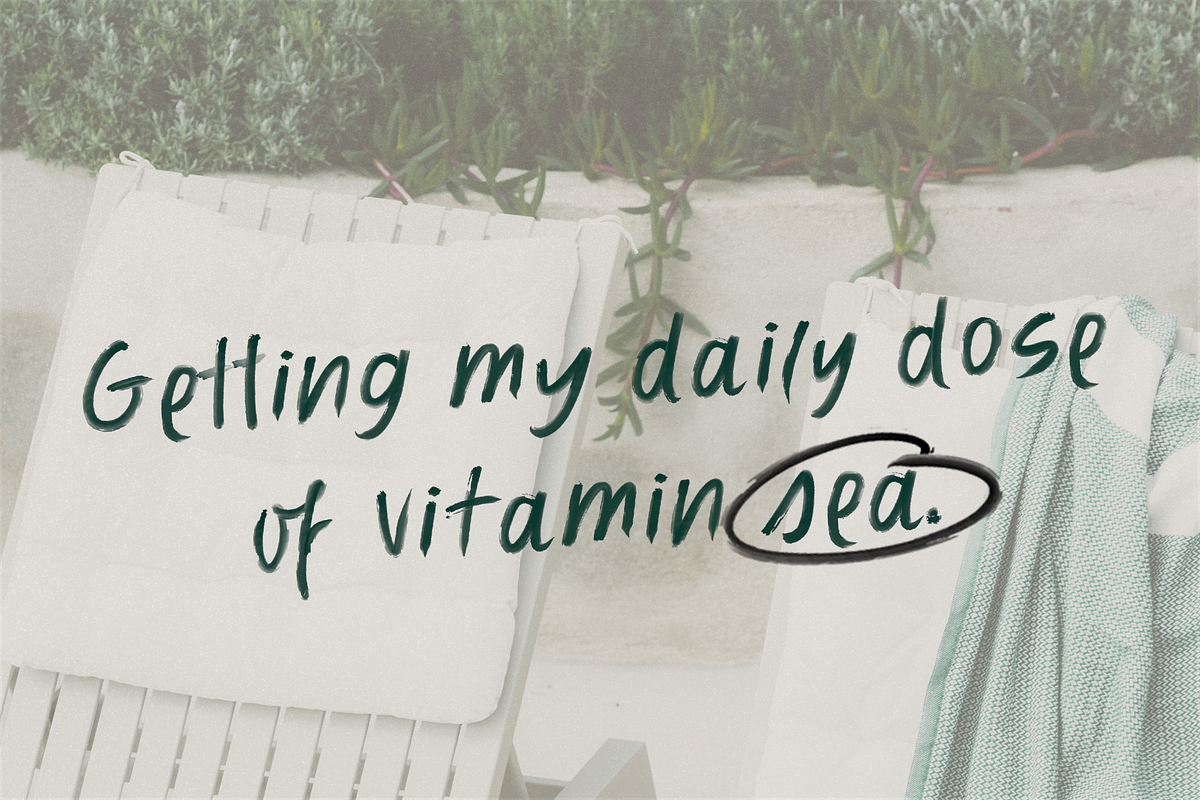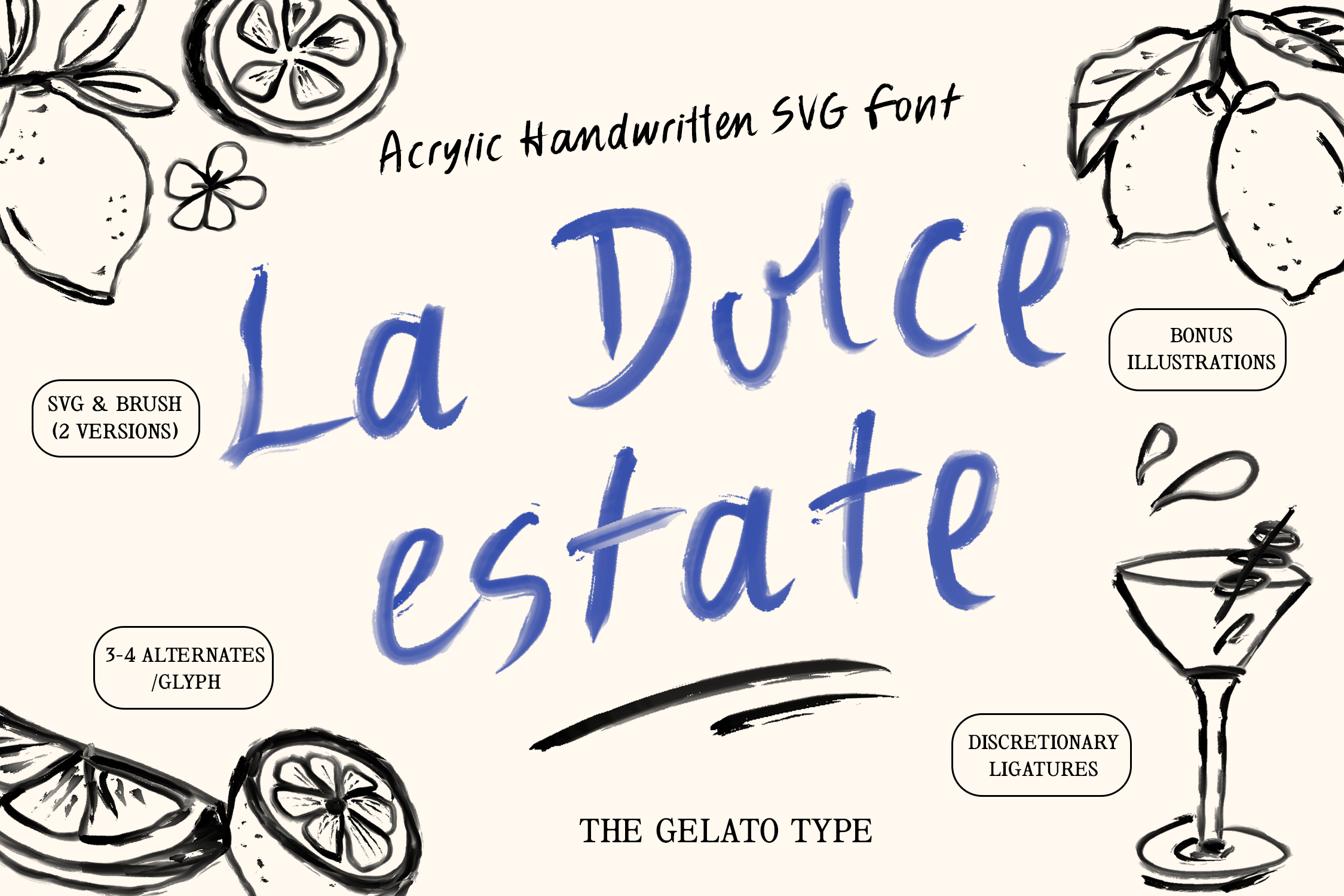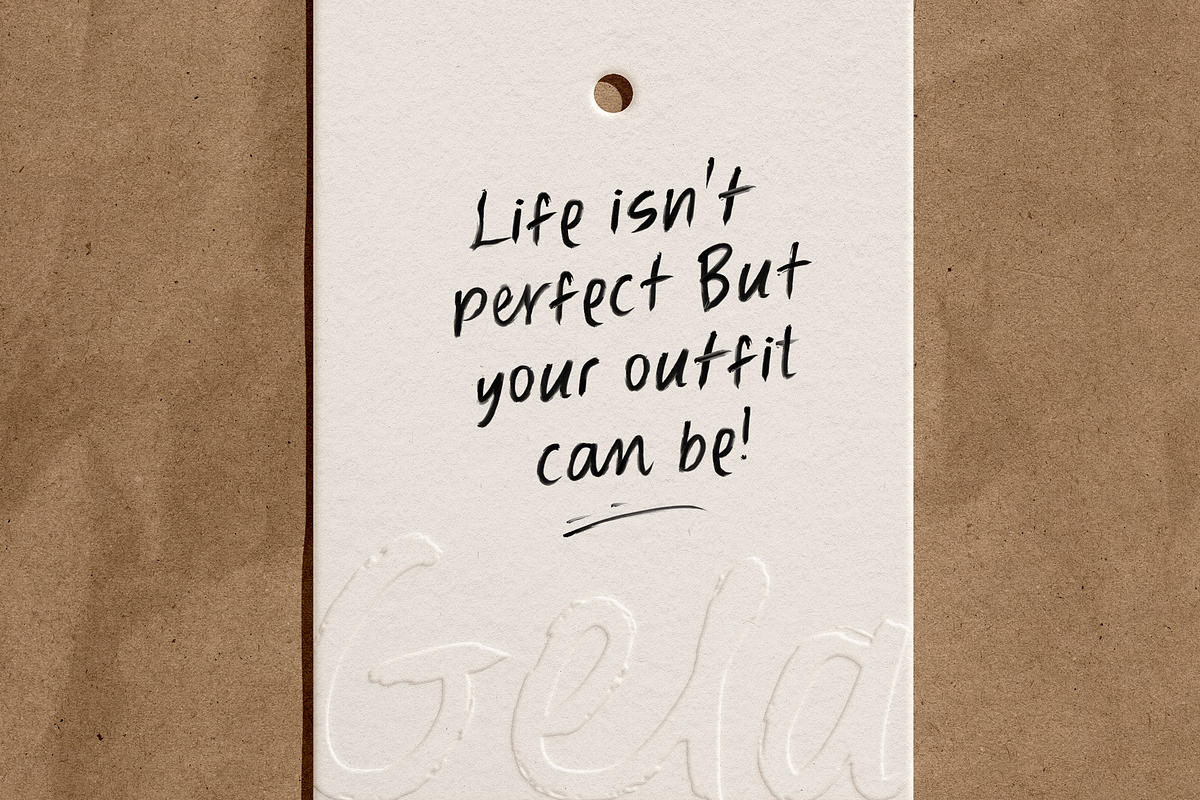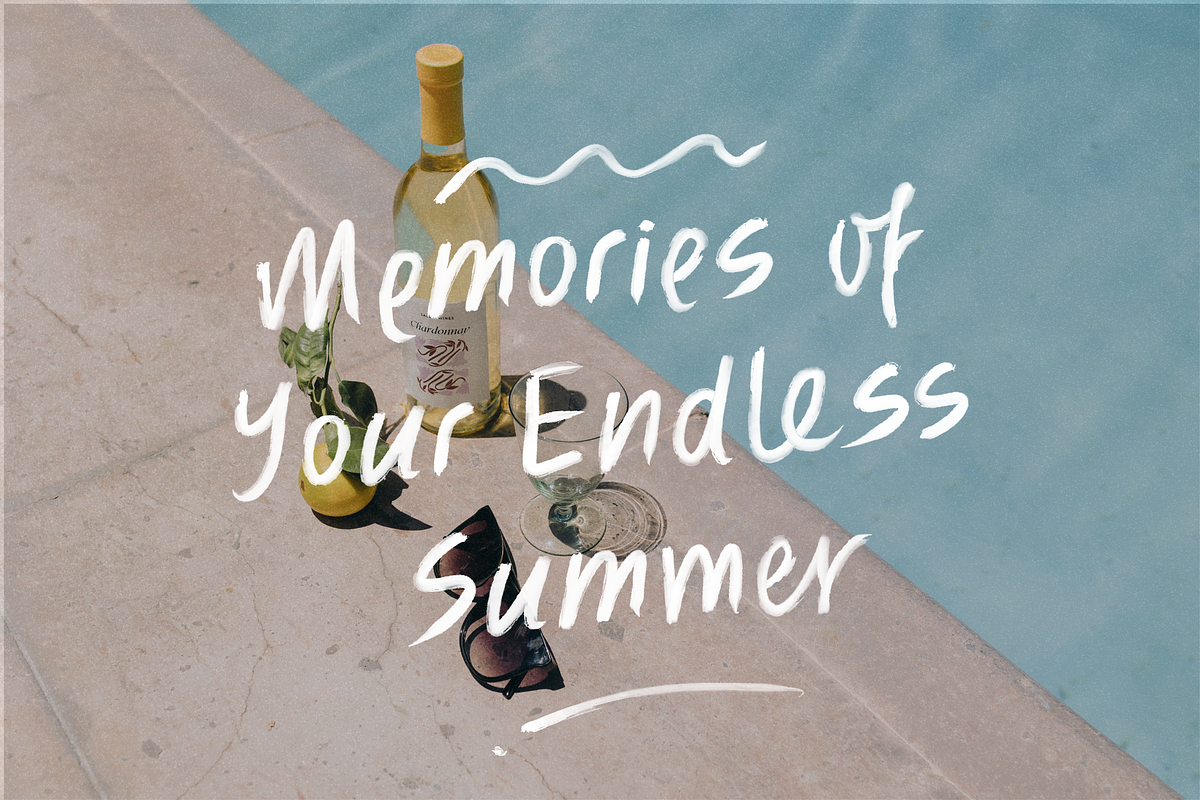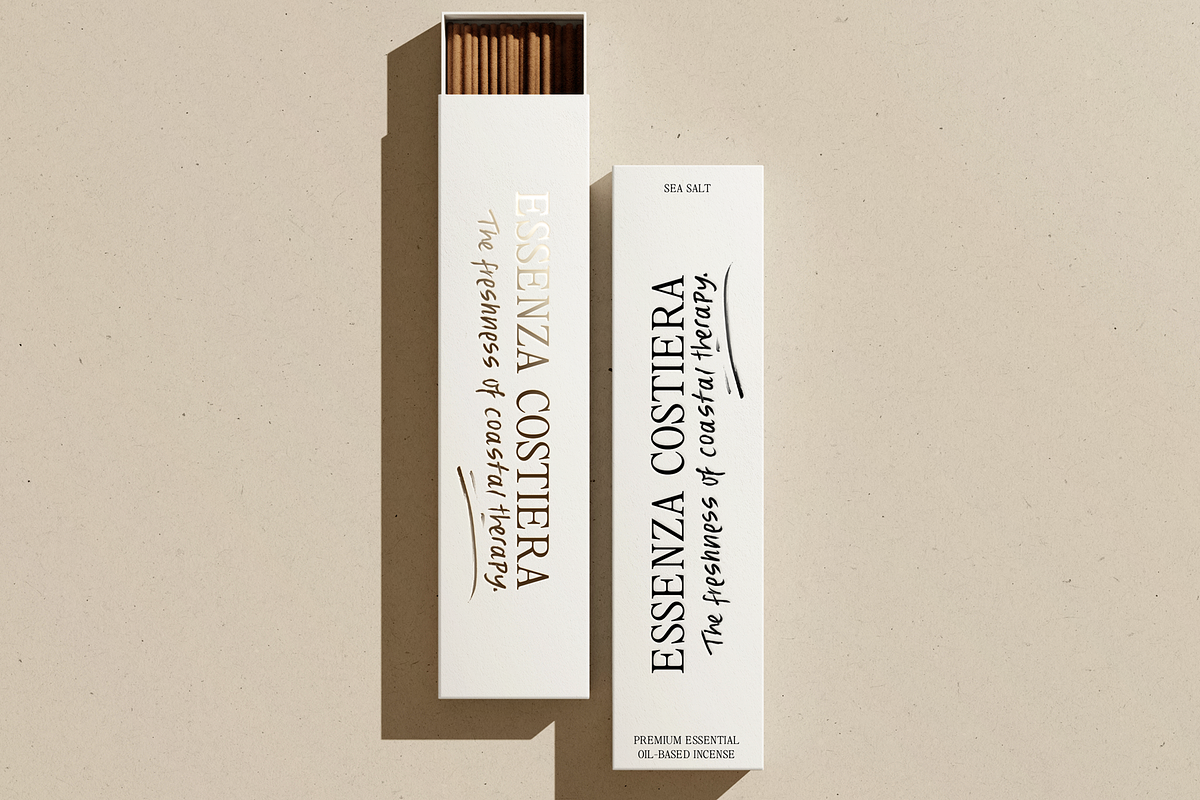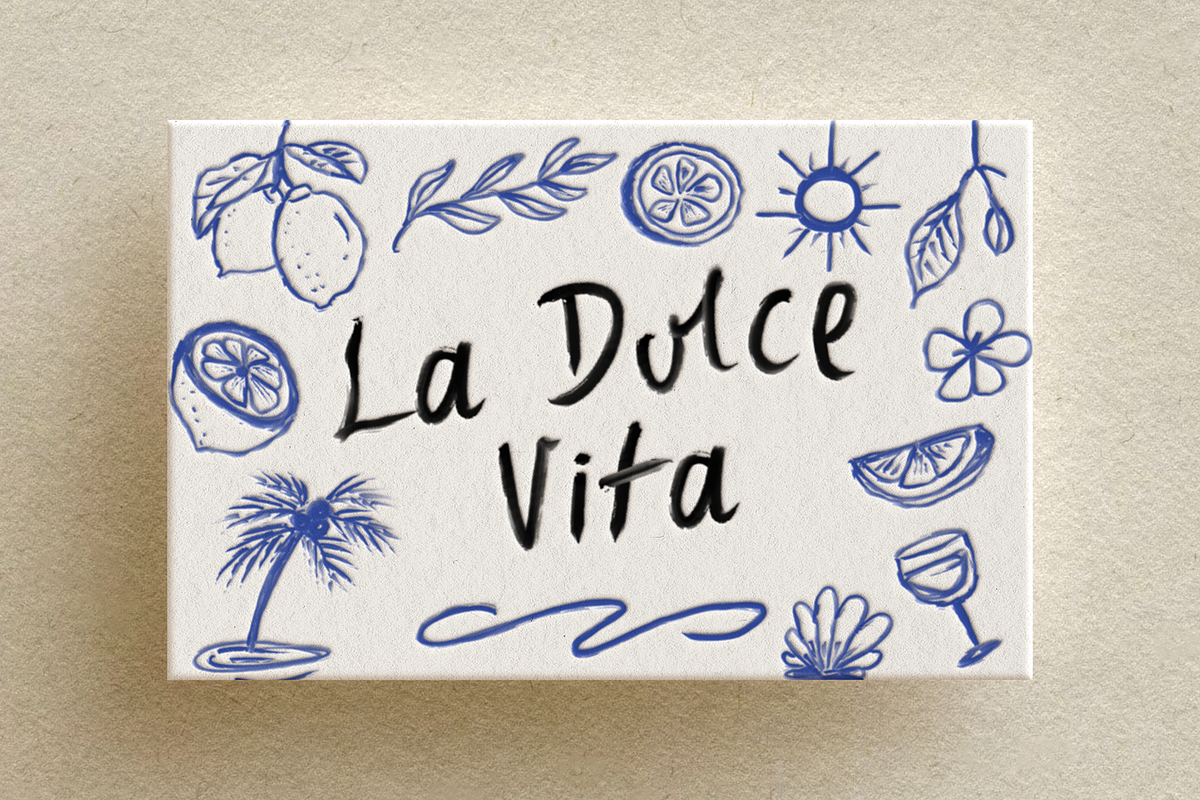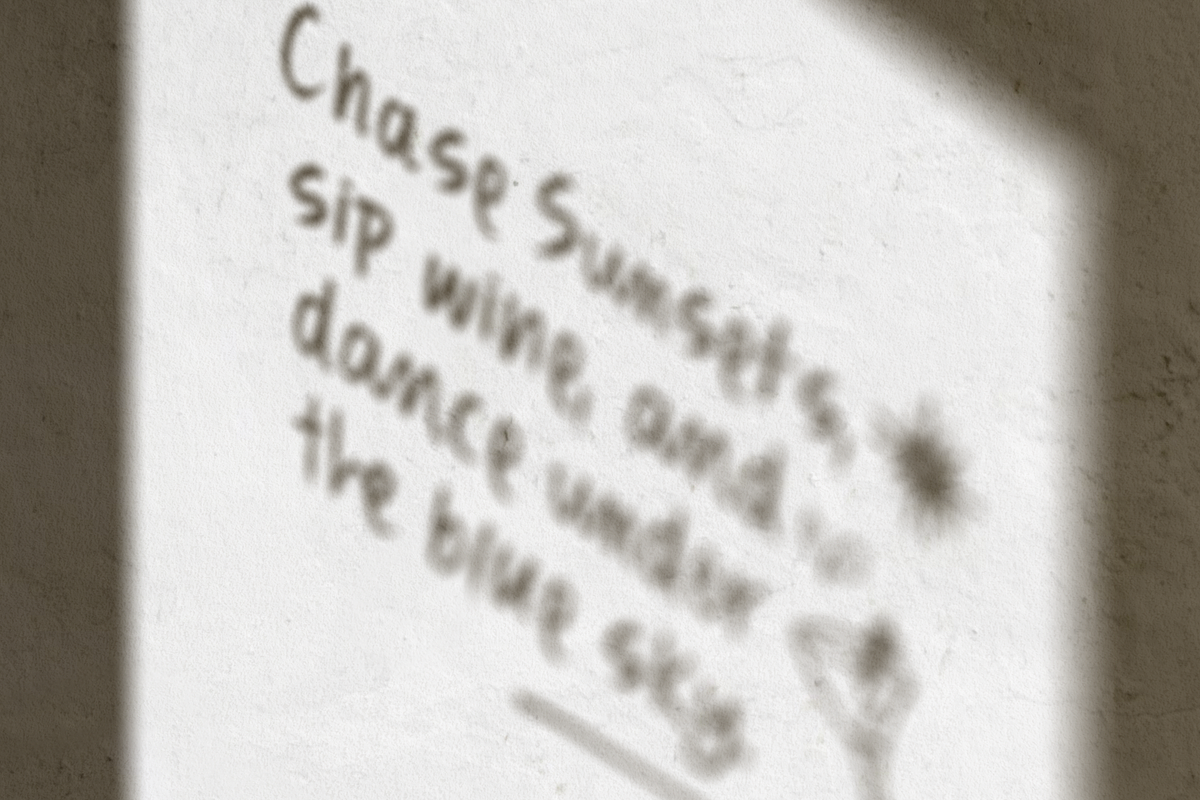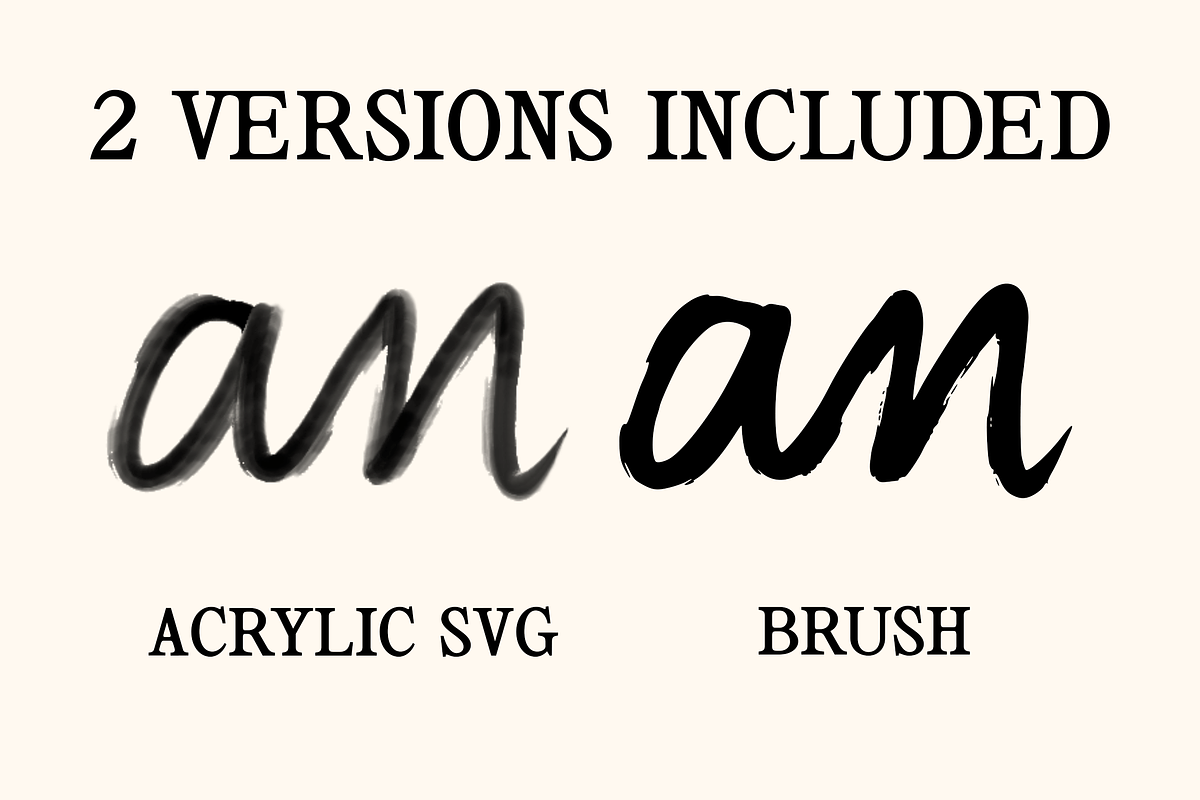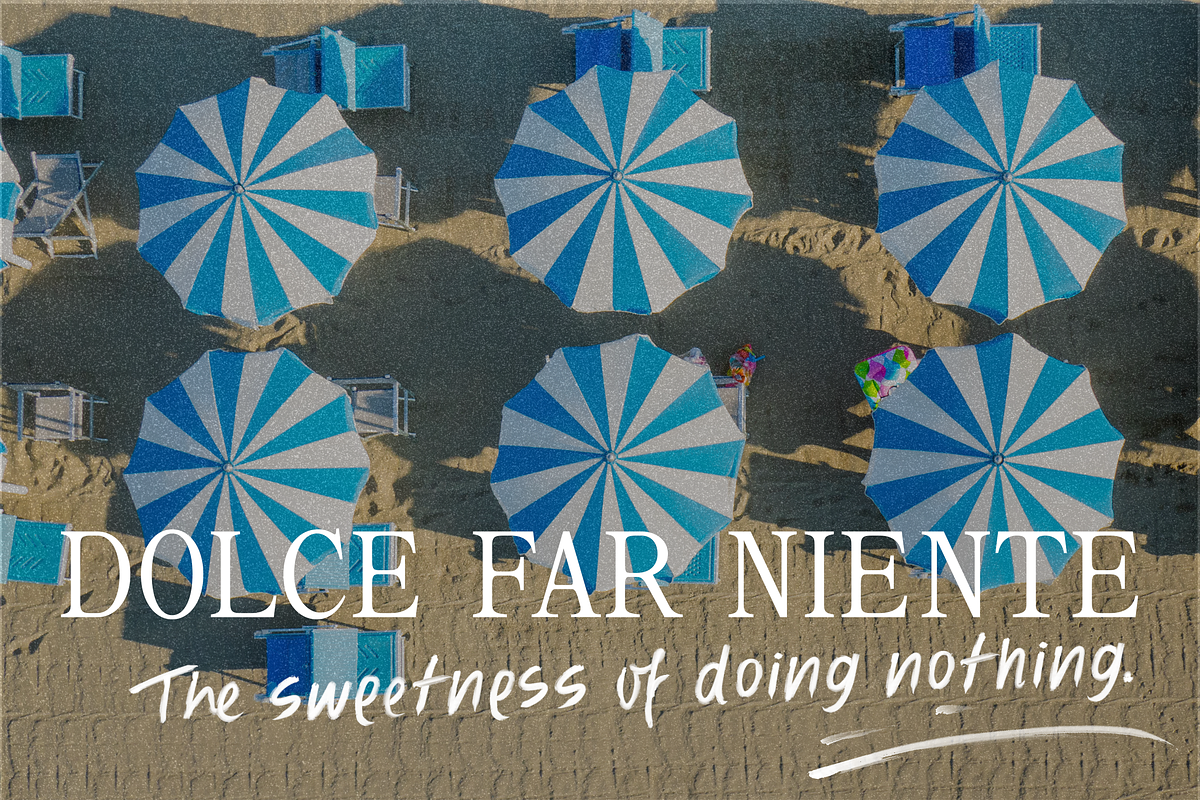
La Dolce Estate SVG Brush Font
Dive into the carefree spirit of summer with "La Dolce Estate," an enchanting ACRYLIC SVG BRUSH FONT that embodies sun-soaked days and breezy evenings.
This versatile font is presented in 2 VERSIONS: SVG & BRUSH, each brimming with character and crafted to add a touch of handcrafted authenticity to your projects. What sets "La Dolce Estate" apart is its inclusion of BONUS HAND-DRAWN ILLUSTRATIONS that perfectly complement its lively vibe. From playful beach elements to whimsical tropical lemons, these illustrations harmonize seamlessly with the font, offering endless creative possibilities.
Enhanced with OpenType Features, "La Dolce Estate" allows you to effortlessly create custom typography with a genuine, artisanal feel with discretionary ligatures and 3-4 alternates per glyph.
Whether you're designing posters for a beach party, crafting invitations for a destination wedding, or adding a splash of summer to your branding, this font and its illustrations inspire creativity at every turn.